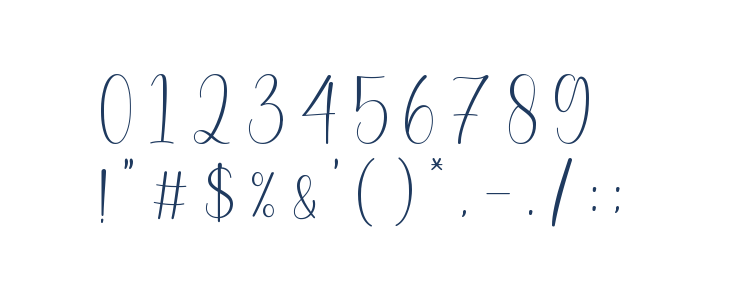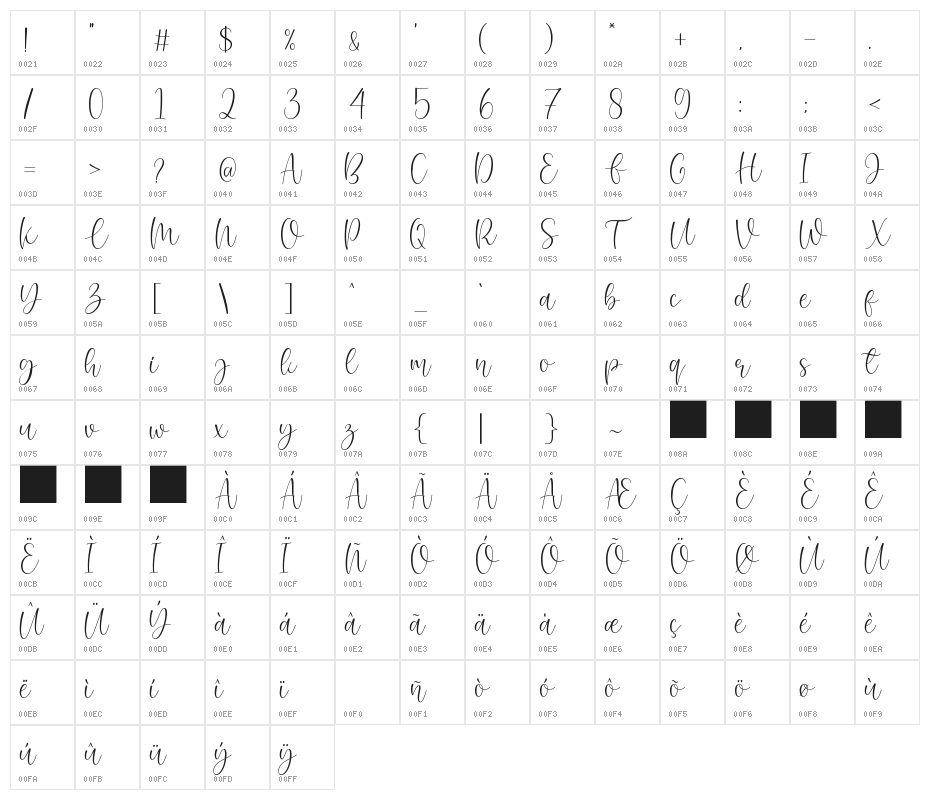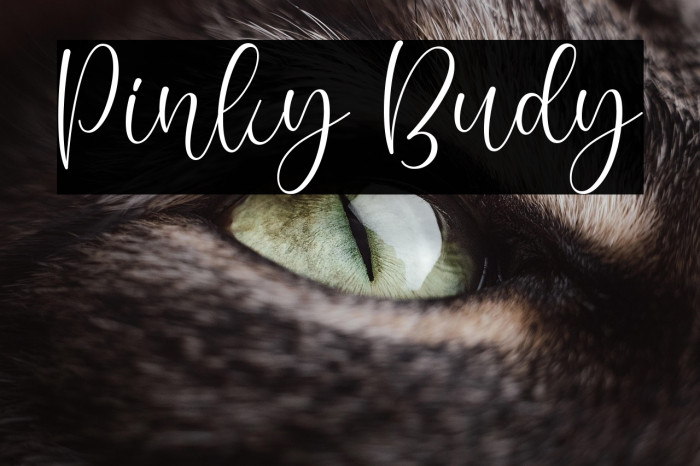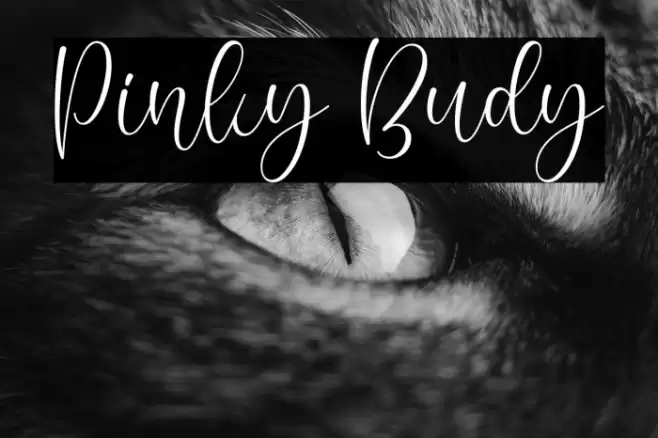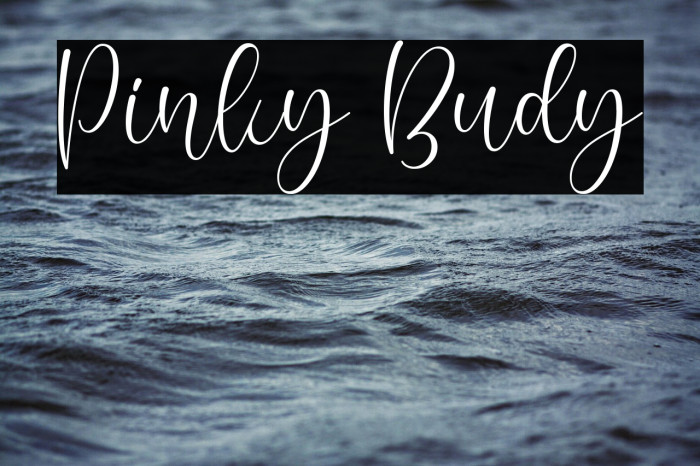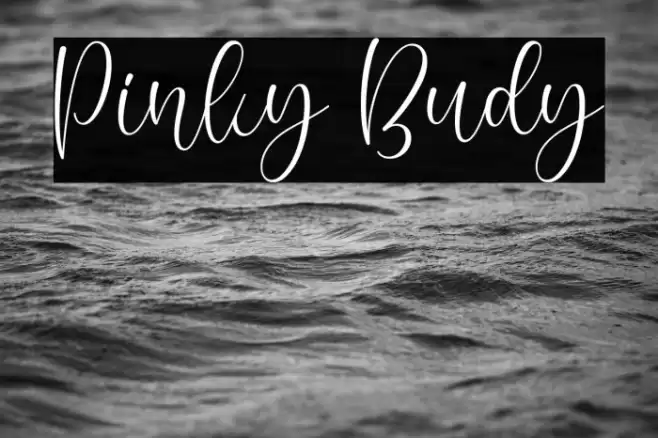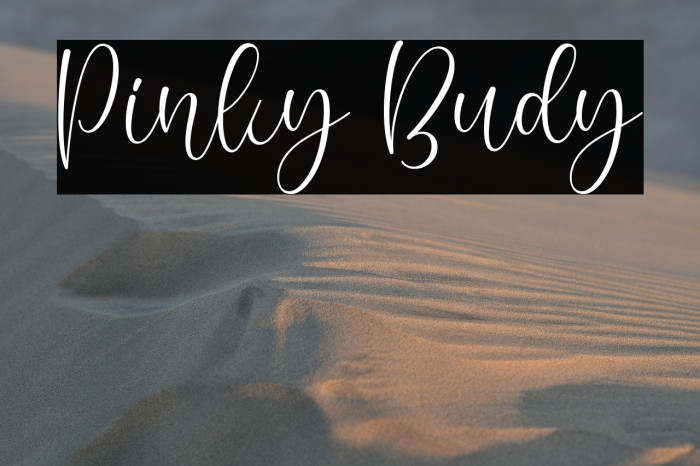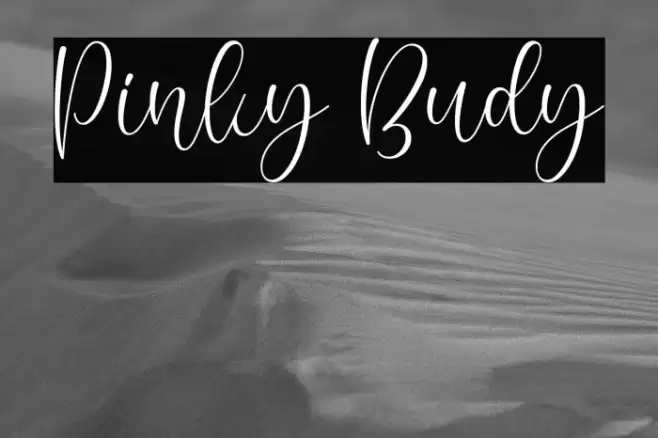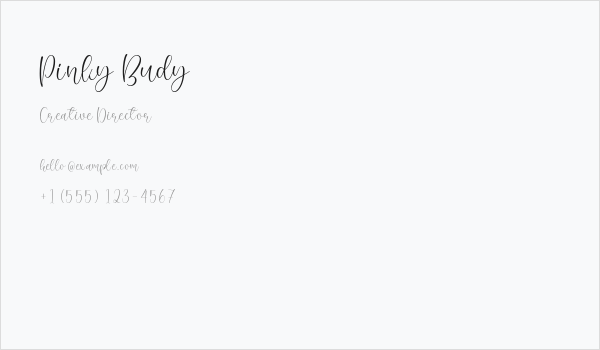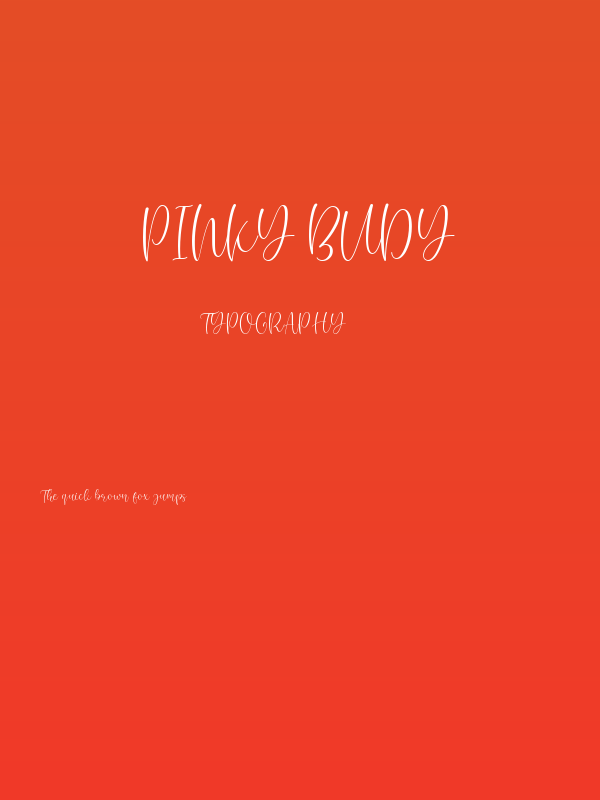
Pinky Budy Font
Pinky Budy Description
This font features a playful and elegant script style, characterized by its fluid, cursive strokes and a handwritten appearance. The letters are connected, creating a seamless flow that mimics natural handwriting. The uppercase letters are slightly more ornate, with flourishes that add a touch of sophistication. The lowercase letters maintain a consistent style, with rounded forms and smooth curves. The numerals and special characters are designed to complement the alphabet, maintaining the same graceful aesthetic. This font is ideal for projects that require a personal, artistic touch.
| Use Case | Logos, Invitations, Social Media |
| Proposed Projects | Ideal for wedding invitations, greeting cards, branding, and social media graphics. |